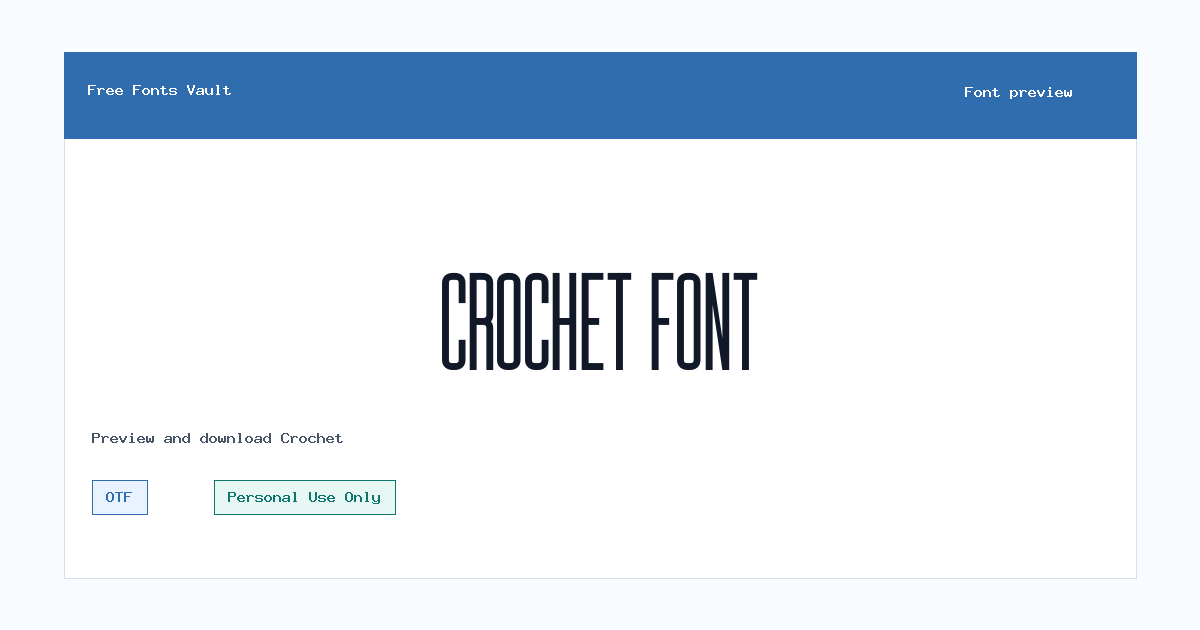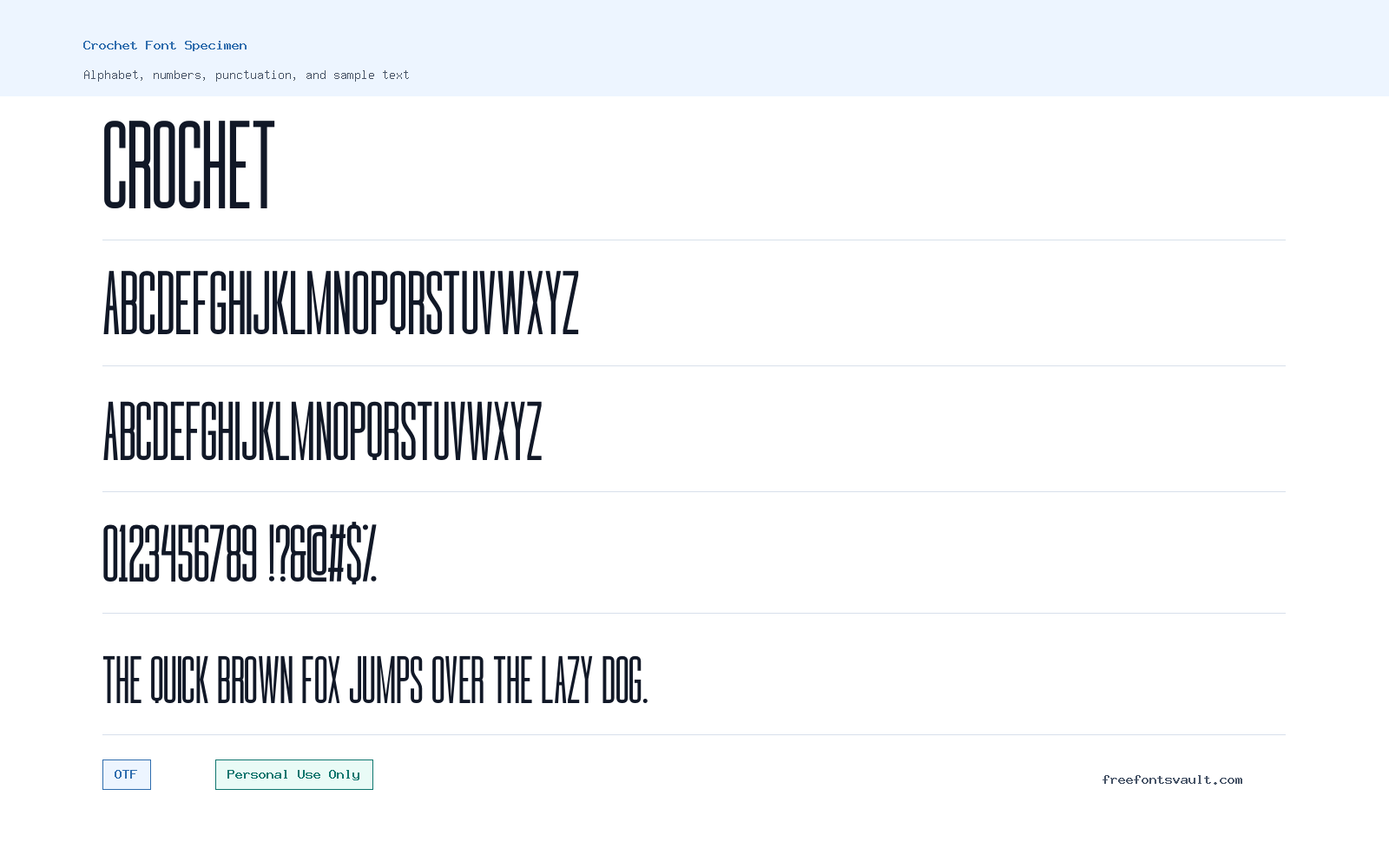
Crochet
- Designer Muhammad Rizki Utomo
Crochet is a personal-use sans serif font by Muhammad Rizki Utomo. It is a practical choice for visitors who want to test a clean display face in previews, drafts, posters, logos, and other non-commercial design work.
About Crochet Font
Crochet is presented as a sans serif font, so the safest way to judge it is by testing the words you actually plan to use. Try short headlines, brand names, poster titles, and menu-style text in the preview before downloading. Look closely at spacing, letter balance, and how distinctive characters behave next to each other. A font can feel very different in a single word than it does in a full phrase, so test both uppercase and lowercase combinations if your project depends on a polished title or logo-style mark.
- Sans serif style suited to short display text, preview testing, and personal design drafts.
- Works best when tested with real project wording, especially names, headings, poster lines, and logo concepts.
- Personal logo concepts and nameplate experiments
- Poster titles, event mockups, and social media drafts
- Web design mockups where a clean display sans serif is needed
- Short headings, labels, and creative layout tests
- Moodboards, typography studies, and early-stage brand exploration
Is Crochet good for body text?
Use caution with long paragraphs. Since Crochet is presented as a sans serif with a regular style, it is better to preview it first and use it mainly where it stays clear, such as headings, labels, and short display text.
What should I pair Crochet with?
Pair it with a simple, neutral sans serif or serif for body copy. Let Crochet handle the headline or accent role, then keep supporting text plain for readability.